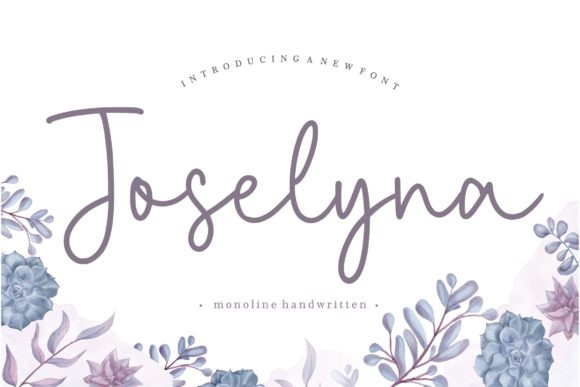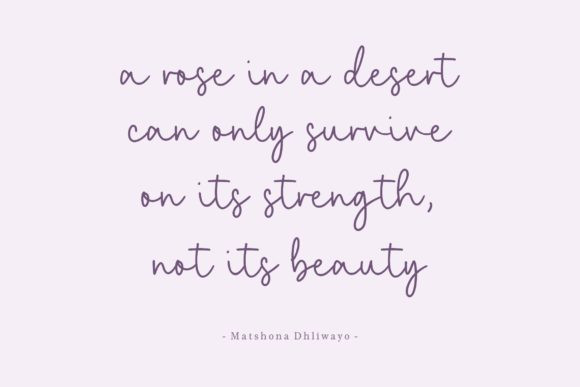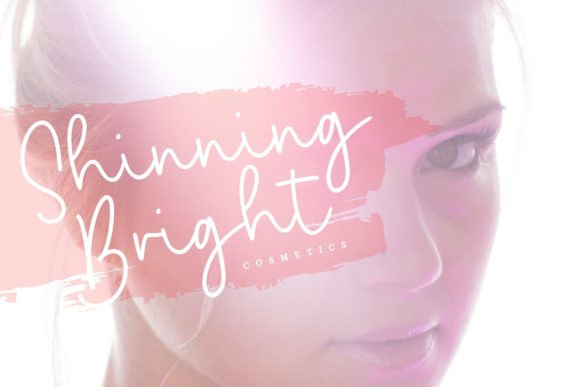
Joselyna Font
Joselyna feels equally charming and elegant. It features an incredibly classic style, while still keeping a friendly feel. Get inspired by its authentic feel and use it to create gorgeous wedding invitations, beautiful stationary art, eye-catching social media posts, and cute greeting cards.